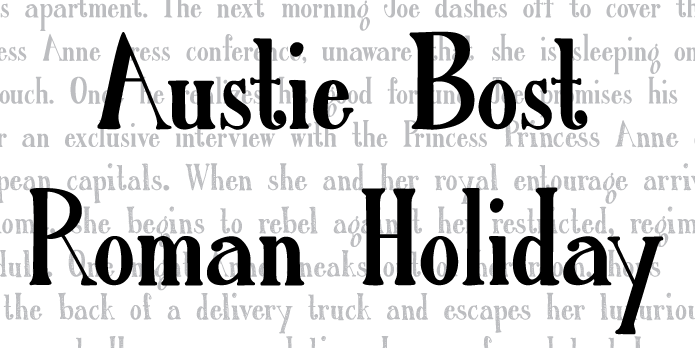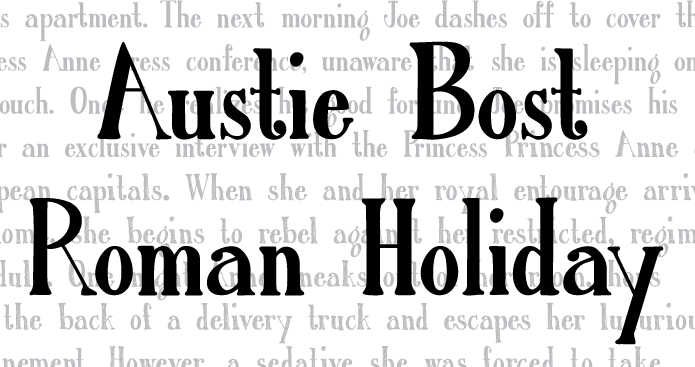
Austie Bost Roman Holiday Solid is a hand drawn font published by Austie Bost Fonts.
Austie Bost Roman Holiday Solid is a handwritten font. This is the second in a series of serifed fonts!